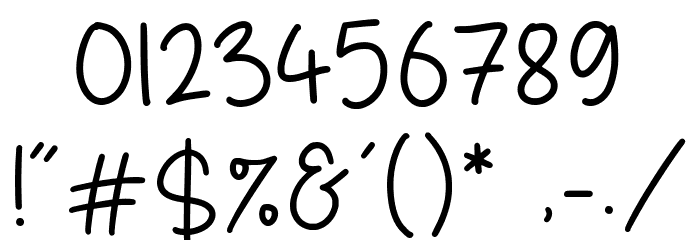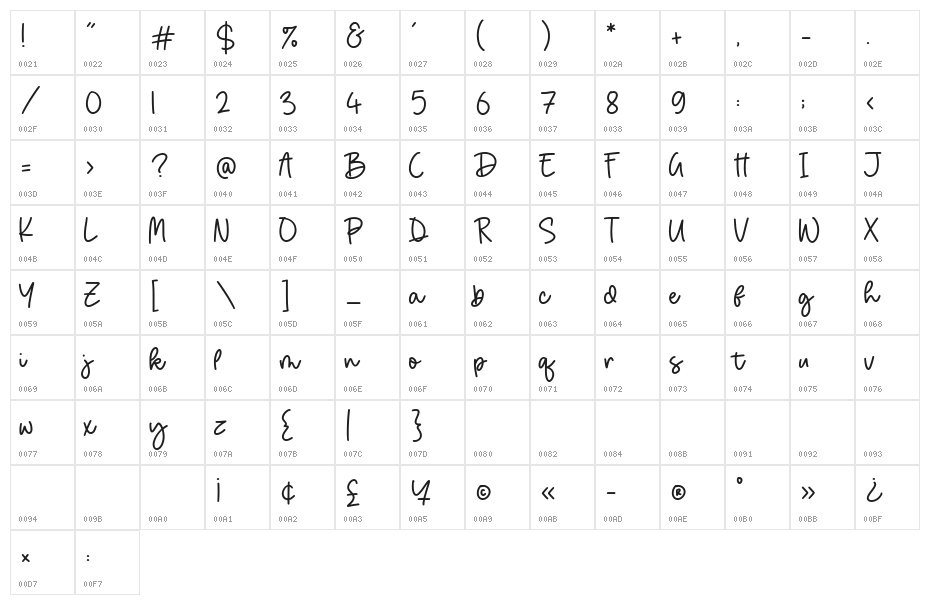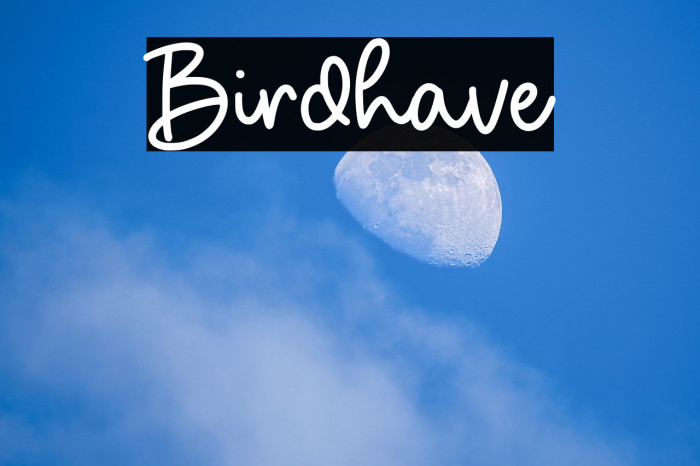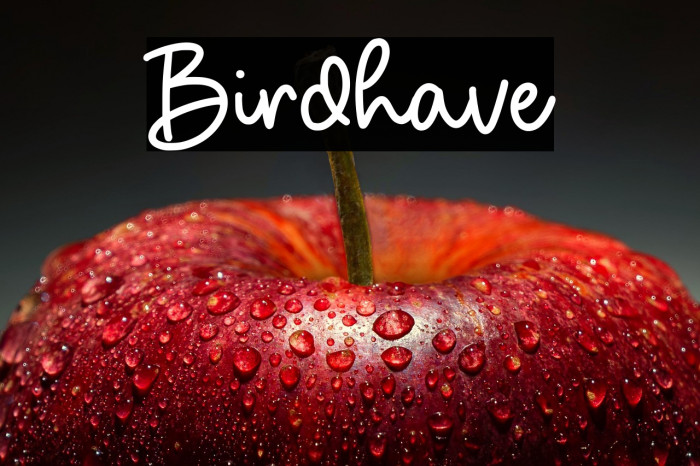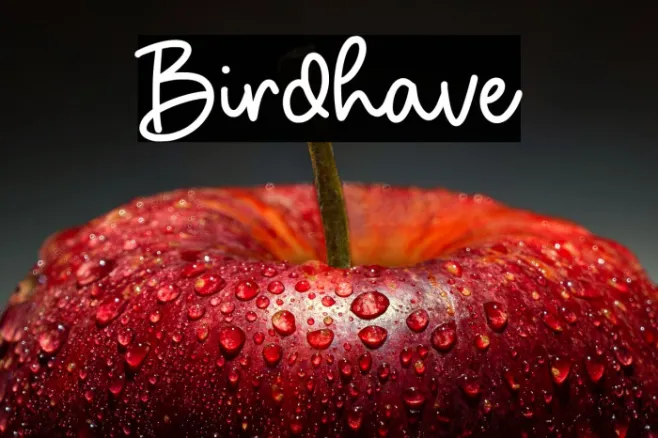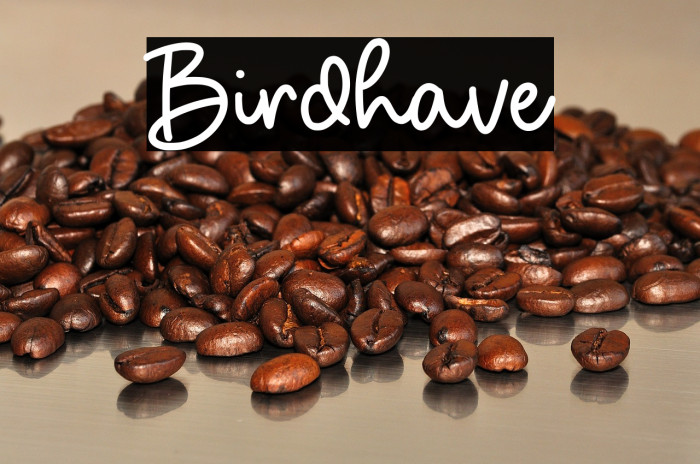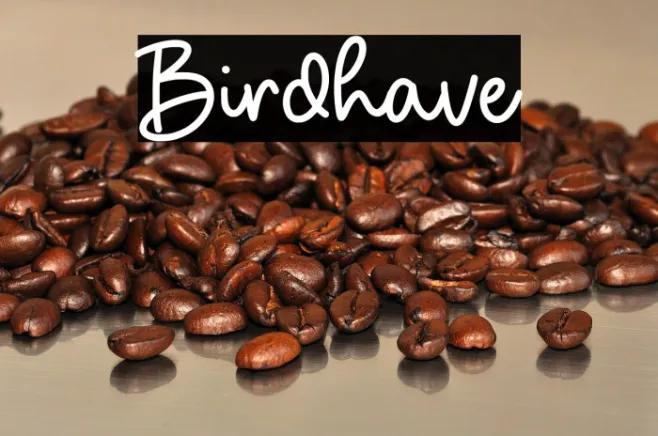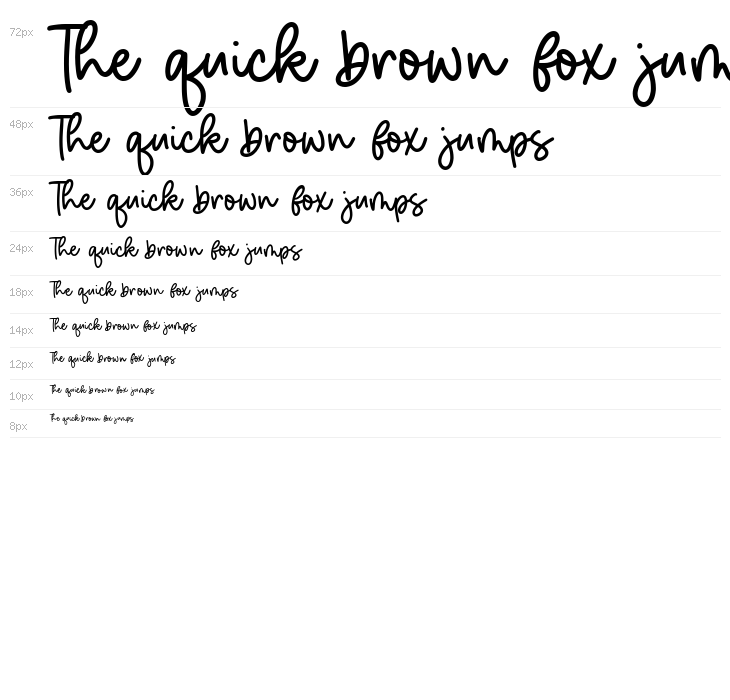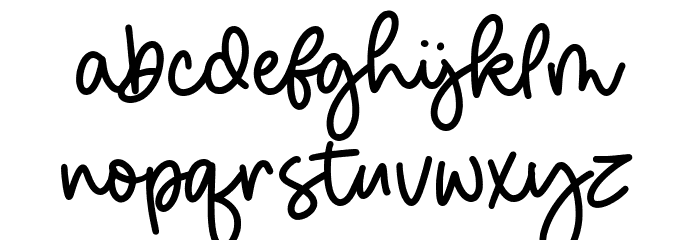
Birdhave Font
Birdhave Description
This font exudes a playful and casual handwritten style, characterized by its smooth, flowing lines and slightly irregular letterforms. The uppercase letters are tall and narrow, while the lowercase letters maintain a consistent baseline with occasional loops and curves that add a whimsical touch. The numerals are clear and legible, matching the overall informal aesthetic. Special characters are integrated seamlessly, maintaining the font's cohesive look. The font's design is approachable and friendly, making it suitable for projects that require a personal or informal tone.
| Overall Style | Casual |
| Use Case | Logos, Headlines, Informal text |
| Proposed Projects | Ideal for greeting cards, personal blogs, children's books, and informal branding projects. |